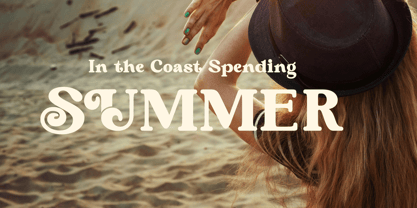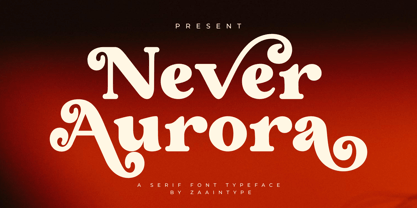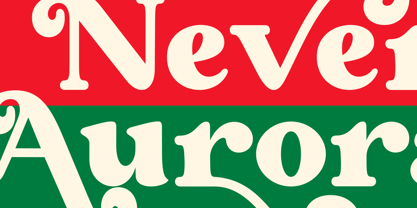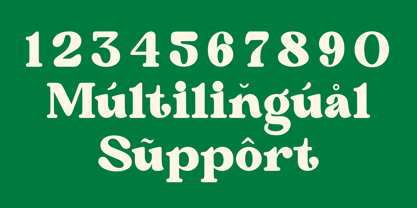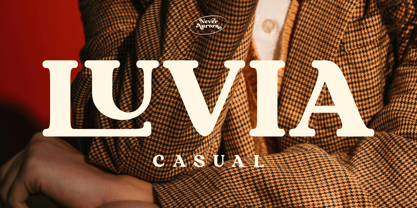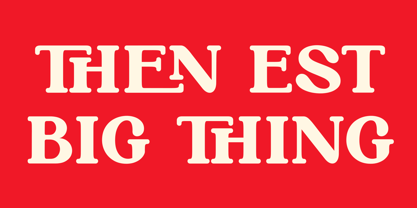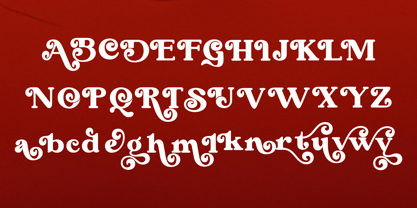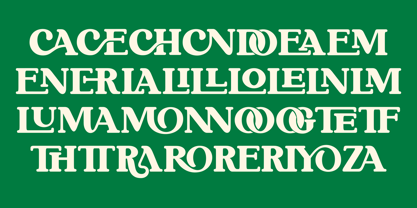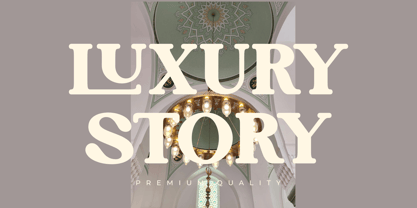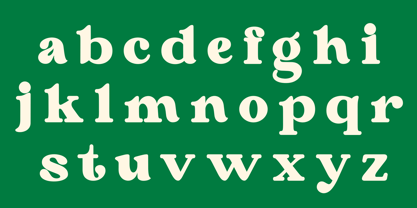
Never Aurora
por Zaain Type
La familia tipográfica Never Aurora fue diseñada por Ju Naen y publicada por Zaain Type. Never Aurora contiene 2 estilos y opciones de paquete familiar.
Never Aurora is a bold serif font that radiates both strength and elegance. With its strong contrast, sharp details, and balanced proportions, it is designed to deliver a dramatic and distinctive presence. Perfect for headlines, branding, editorials, or any design that seeks to convey a bold yet refined character. Never Aurora blends classic aesthetics with a modern touch, making it an ideal choice for creative projects that demand powerful and elegant typography